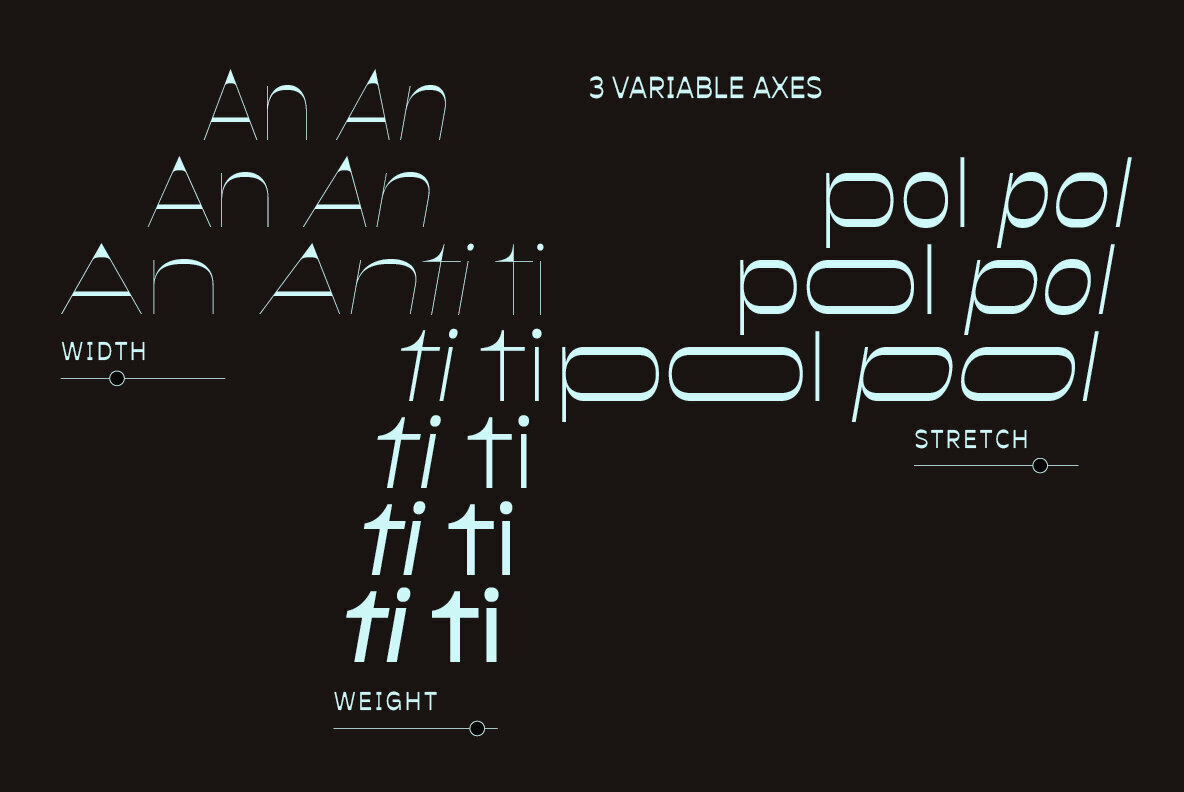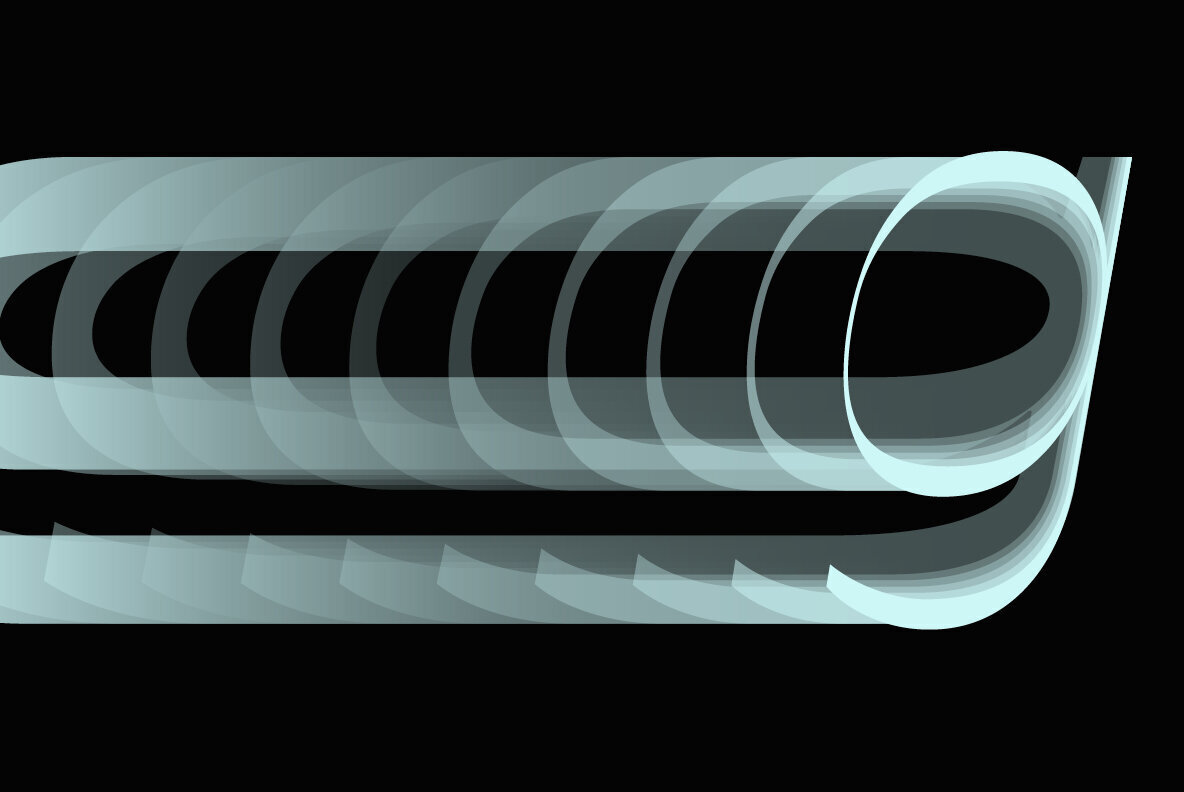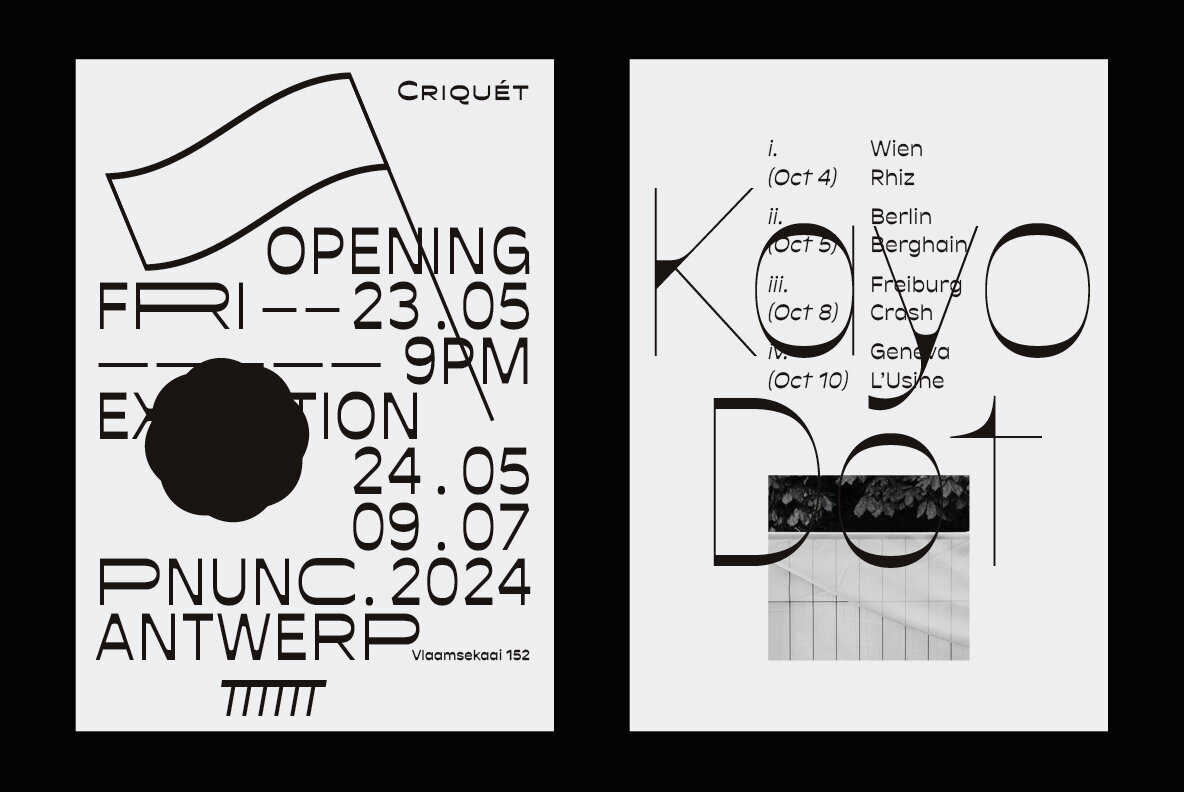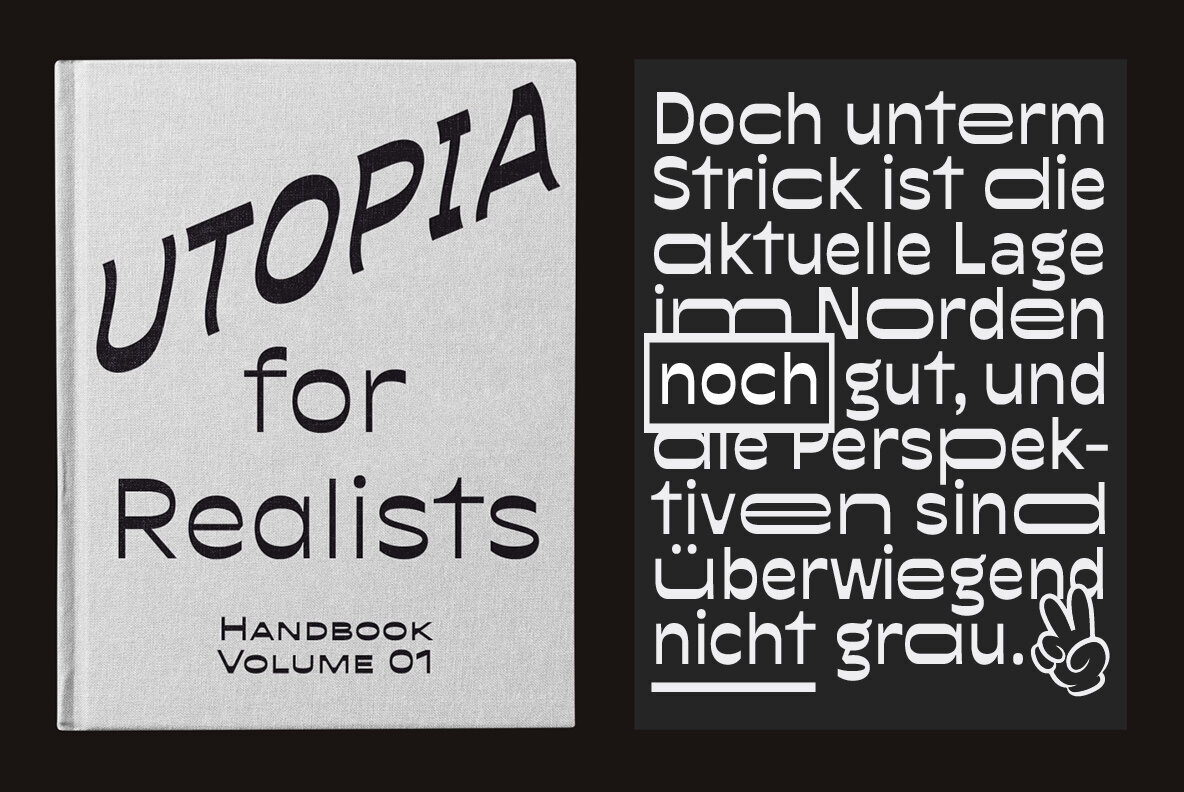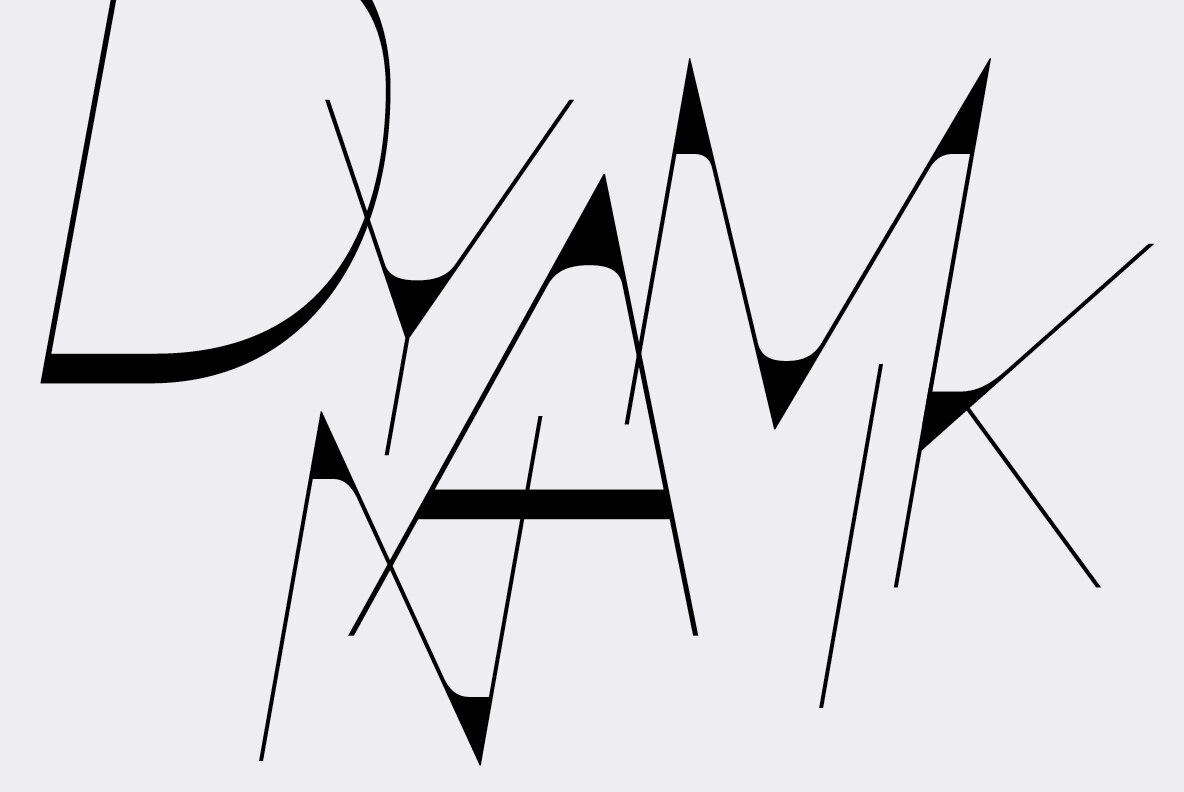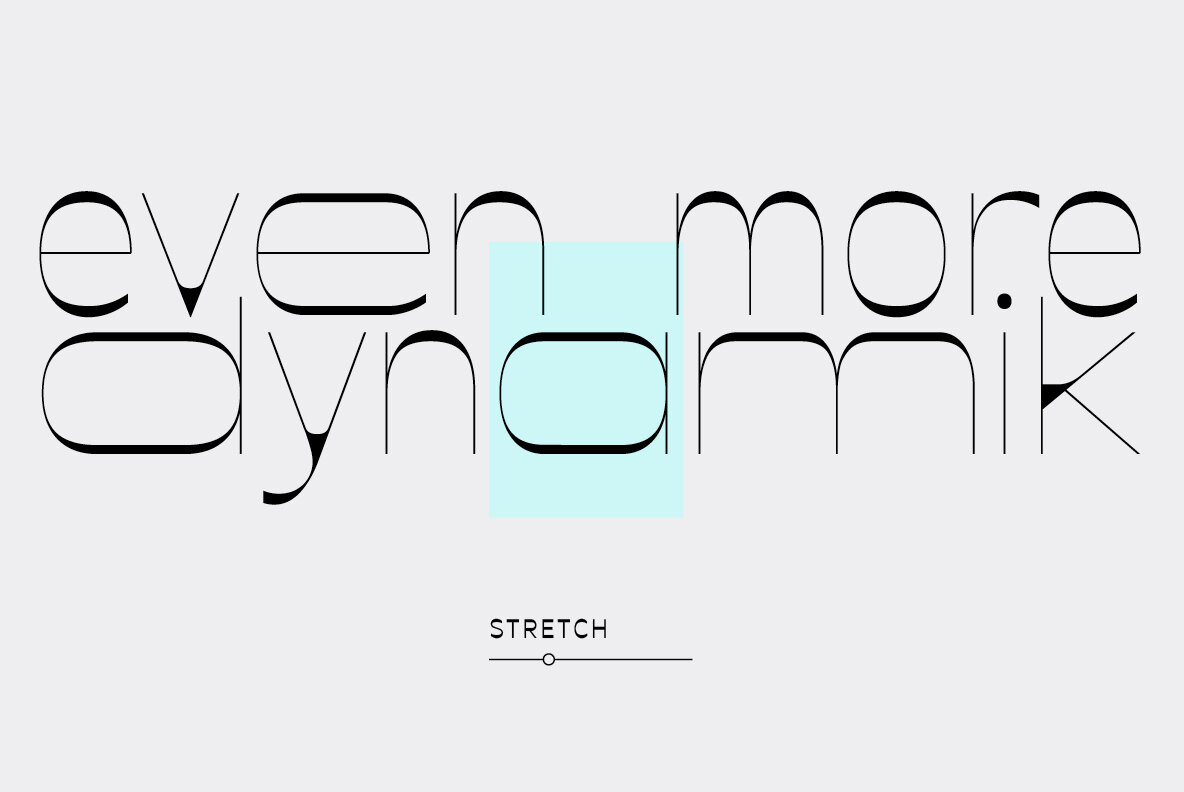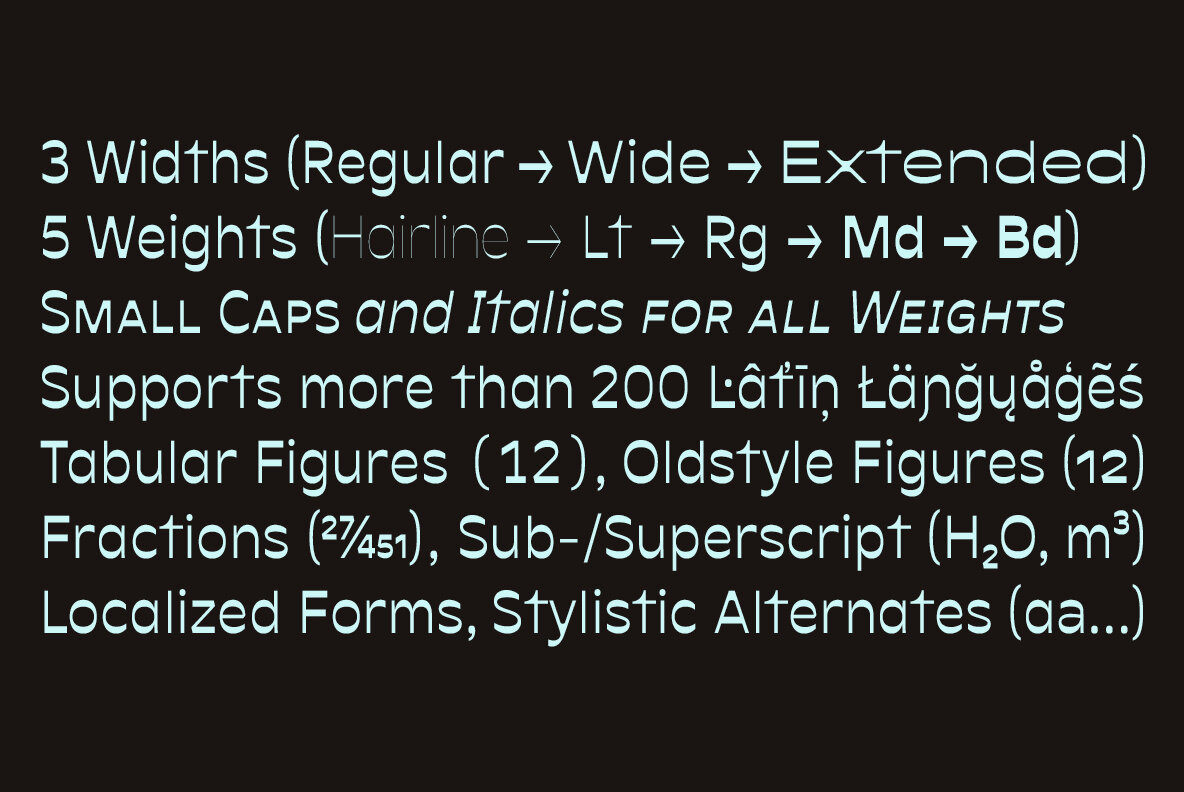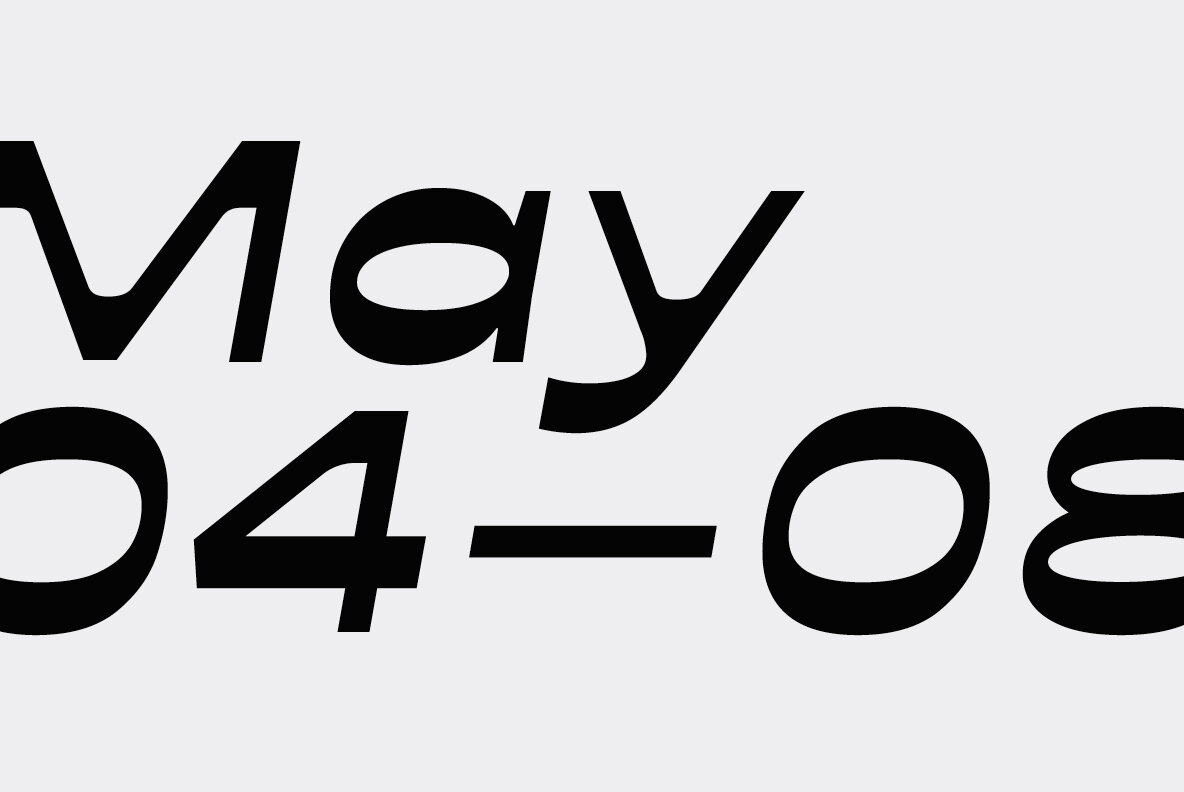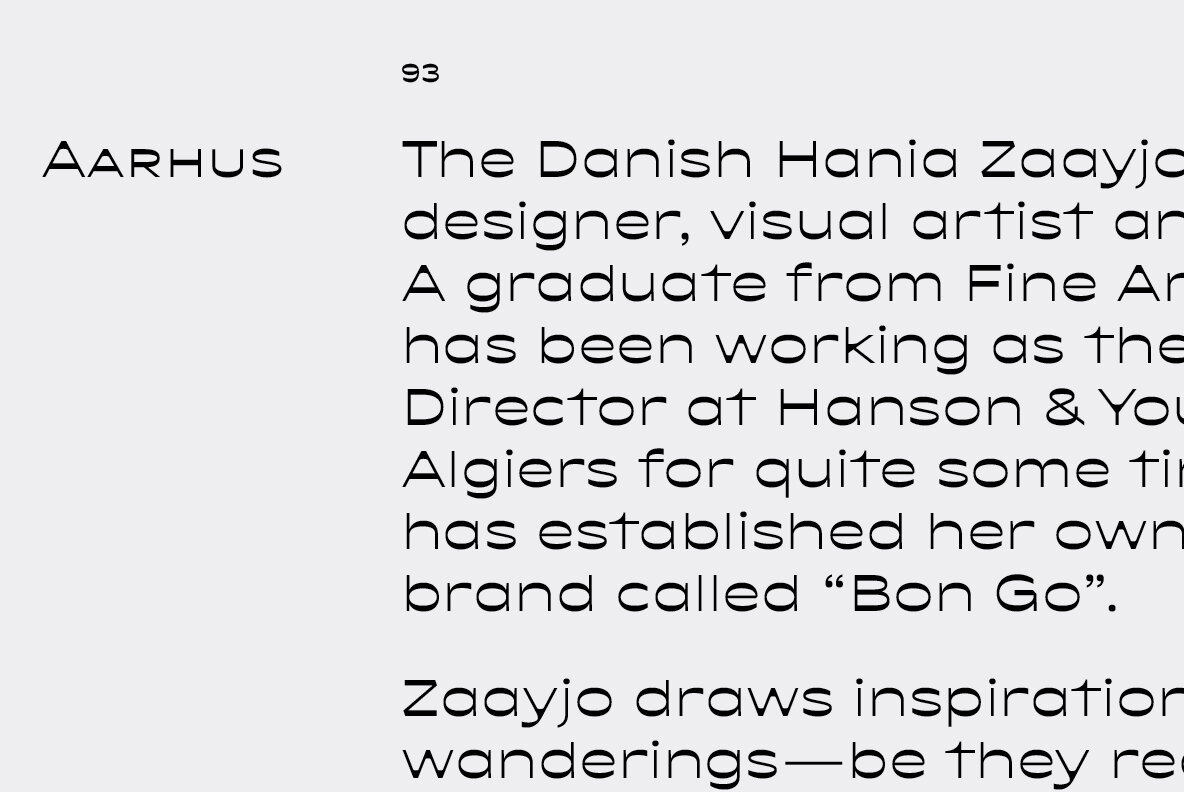
Antipol Variable Font
With Antipol Variable, the reversed stress font was supplemented with Wide and Extended cuts in the Hairline weight. The ability to stretch single letters extremely wide is an exclusive goodie of the Variable version.
Antipol is a Sans Serif design that reverses the conventions of a regular Latin Sans Serif. With a weight emphasis on the horizontals and its vertical terminals Antipol radiates a 1970s charisma known from the like of Antique Olive.
Its modern and avantgardistic attributes are most pronounced in the Hairline weight, where ultra thin lines meet distinctive arrowhead-corners. This particular weight is meant for display settings, think full-page magazine titles or posters.
Antipol Wide and Antipol Extended are a generous statement for graphic design with enough space to let the type breathe: art catalogs, lead texts, invitations, letterheads or brand identity.
Any style comes with a wide range of OpenType features that goes beyond a standard display font: Small Caps, Proportional and Tabular Oldstyle Figures and Lining Figures, Fractions, and much more.